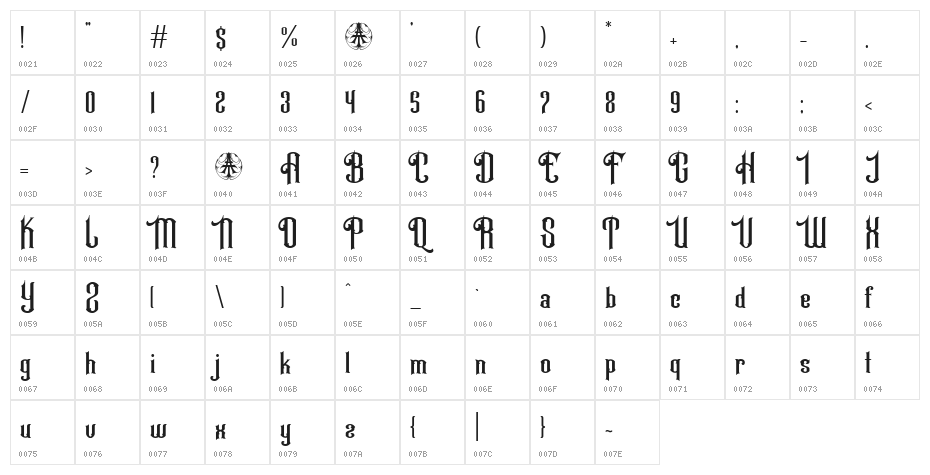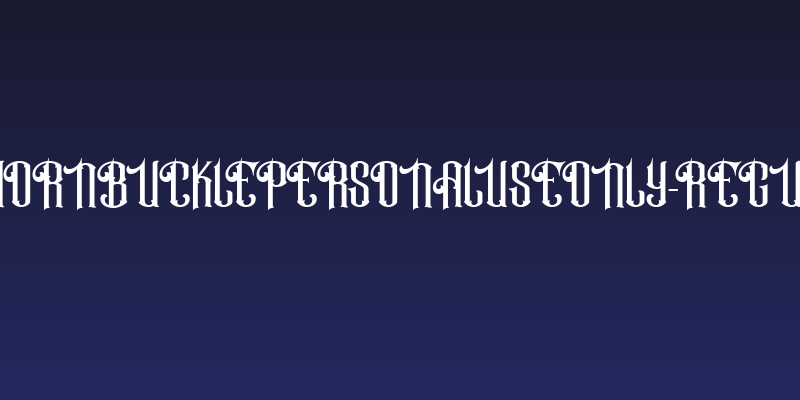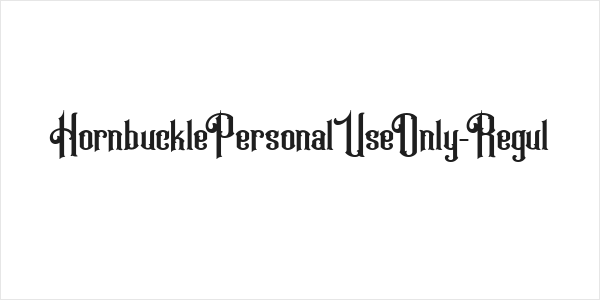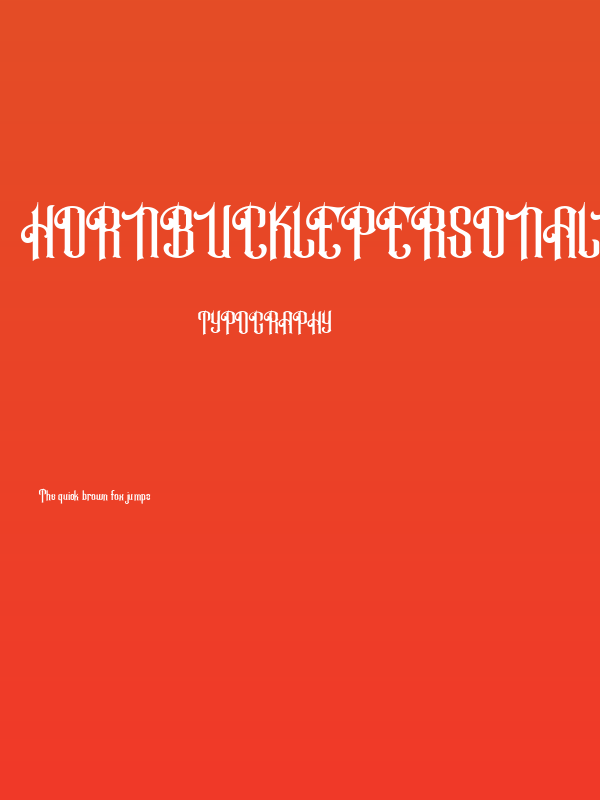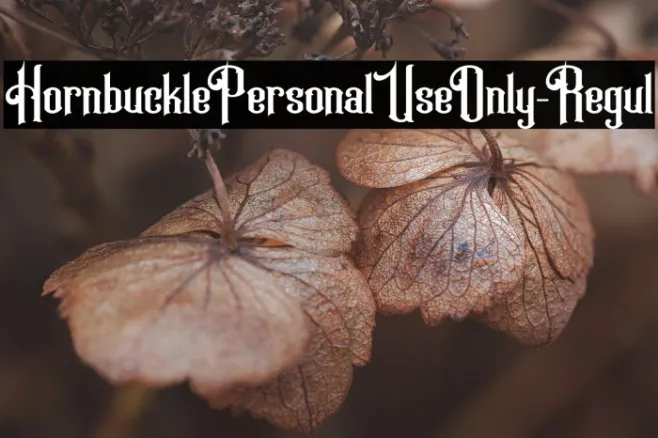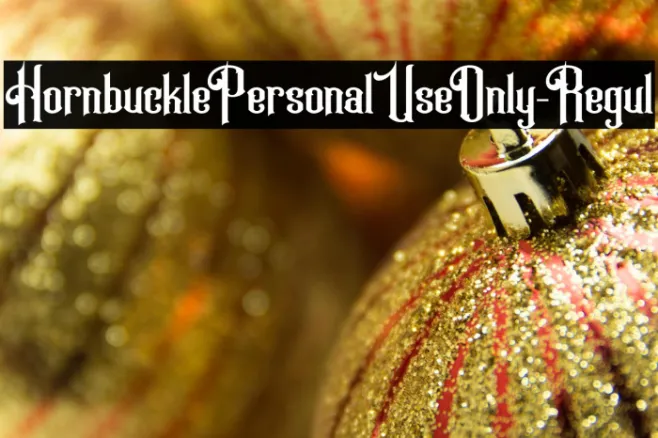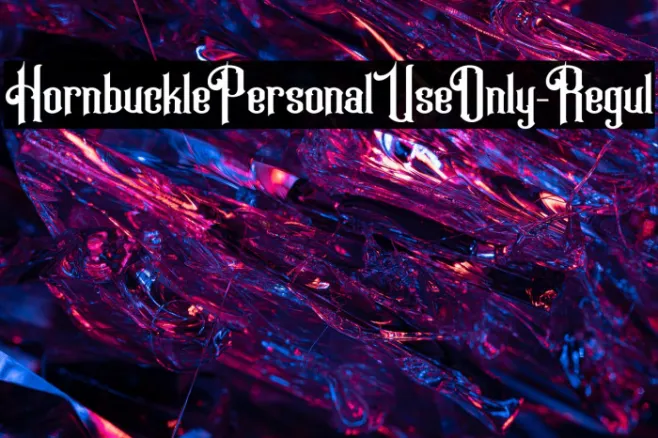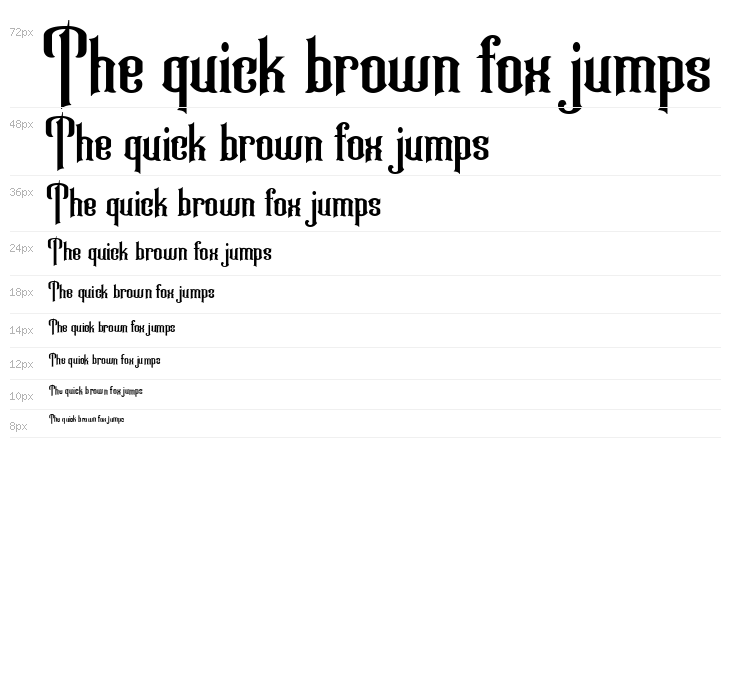
HornbucklePersonalUseOnly-Regul Font
HornbucklePersonalUseOnly-Regul Description
This font features a bold and intricate design, reminiscent of traditional blackletter styles. The uppercase letters are tall and narrow, with sharp, pointed serifs and decorative elements that give them a gothic appearance. The lowercase letters maintain the same ornate style, with a slightly more condensed form. Numbers and special characters are crafted with the same attention to detail, ensuring a cohesive look across all glyphs. The overall aesthetic is both classic and dramatic, making it ideal for projects that require a touch of elegance and historical flair.